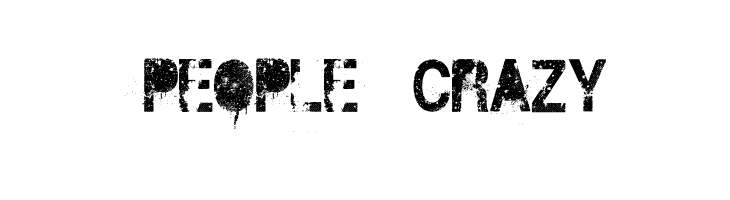
Devilish Style One Font
- Font: Devilish Style One
( Fonts by Andrew Hart - dirt2.com )
A distressed, grungy font with a textured, weathered appearance.